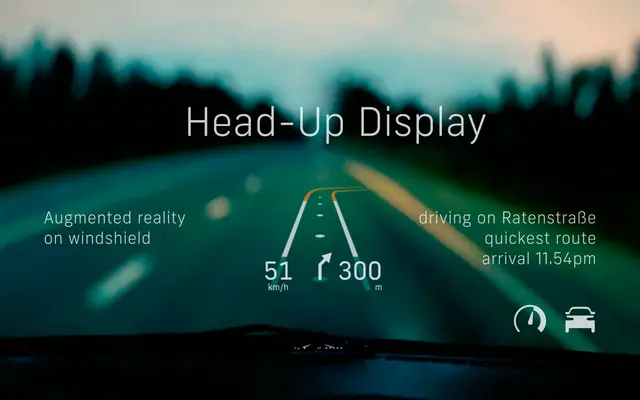
New Frank specimen from Newlyn
A six-weight grotesque family from Newlyn with condensed and compressed subfamilies, suited to signage, transport and identity work.
New Frank spans six weights from Thin to ExtraBold, each with a matching italic, across three width variants: standard, Condensed and Compressed. The specimen copy references rail corporations from India, Malaysia, Norway and Brazil, pointing toward its intended use in wayfinding and institutional contexts. It is a clean, workmanlike grotesque without strong stylistic idiosyncrasy, but its range makes it practical for multi-format identity systems.
New Frank is a grotesque sans-serif with condensed and compressed width variants, consistent with the industrial grotesque tradition. The sample copy referencing rail corporations reinforces a functional, signage-oriented grotesque lineage.